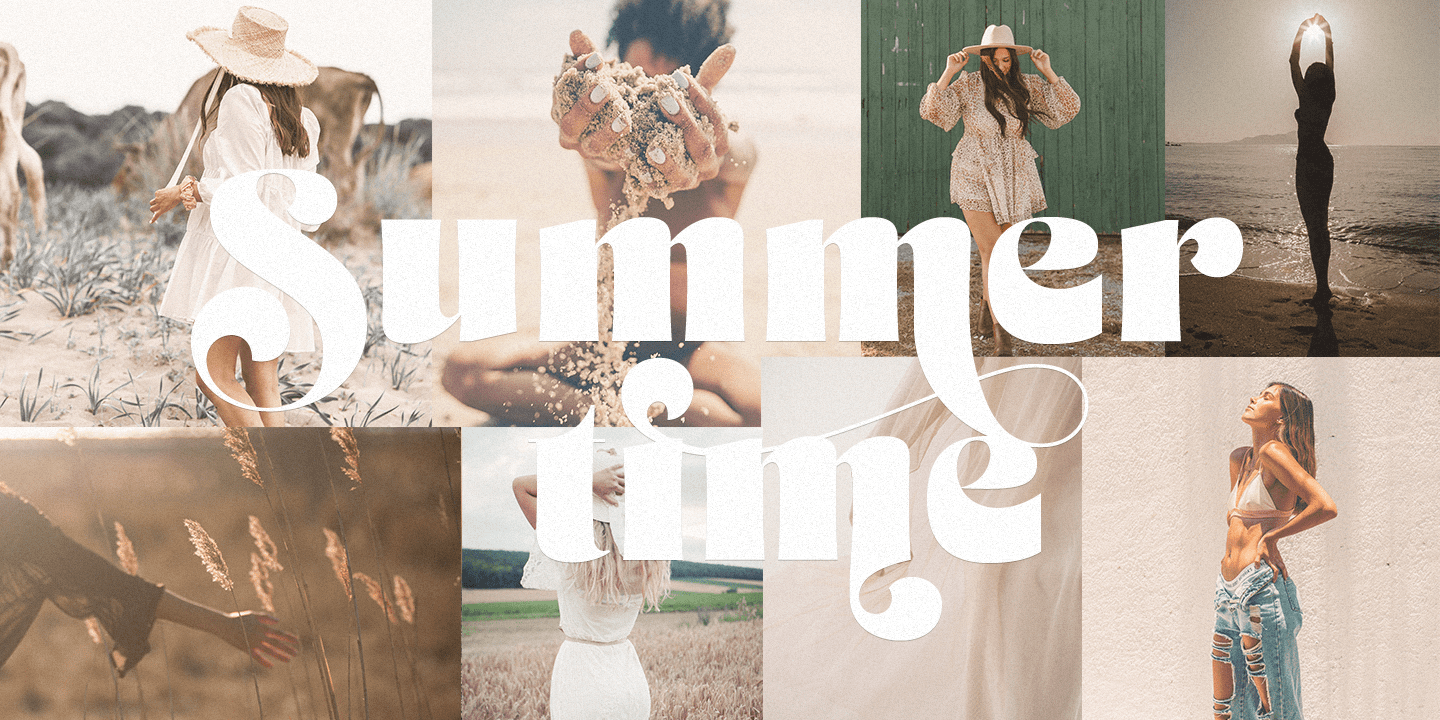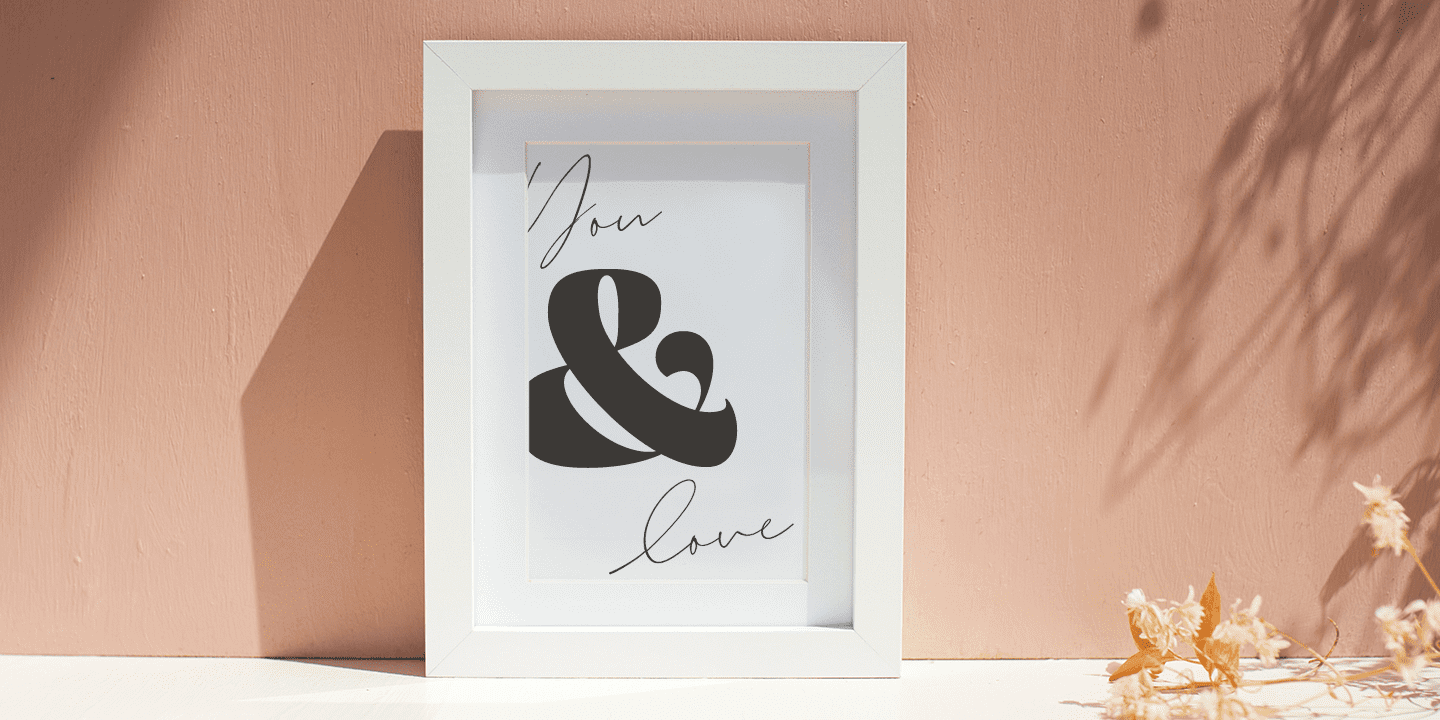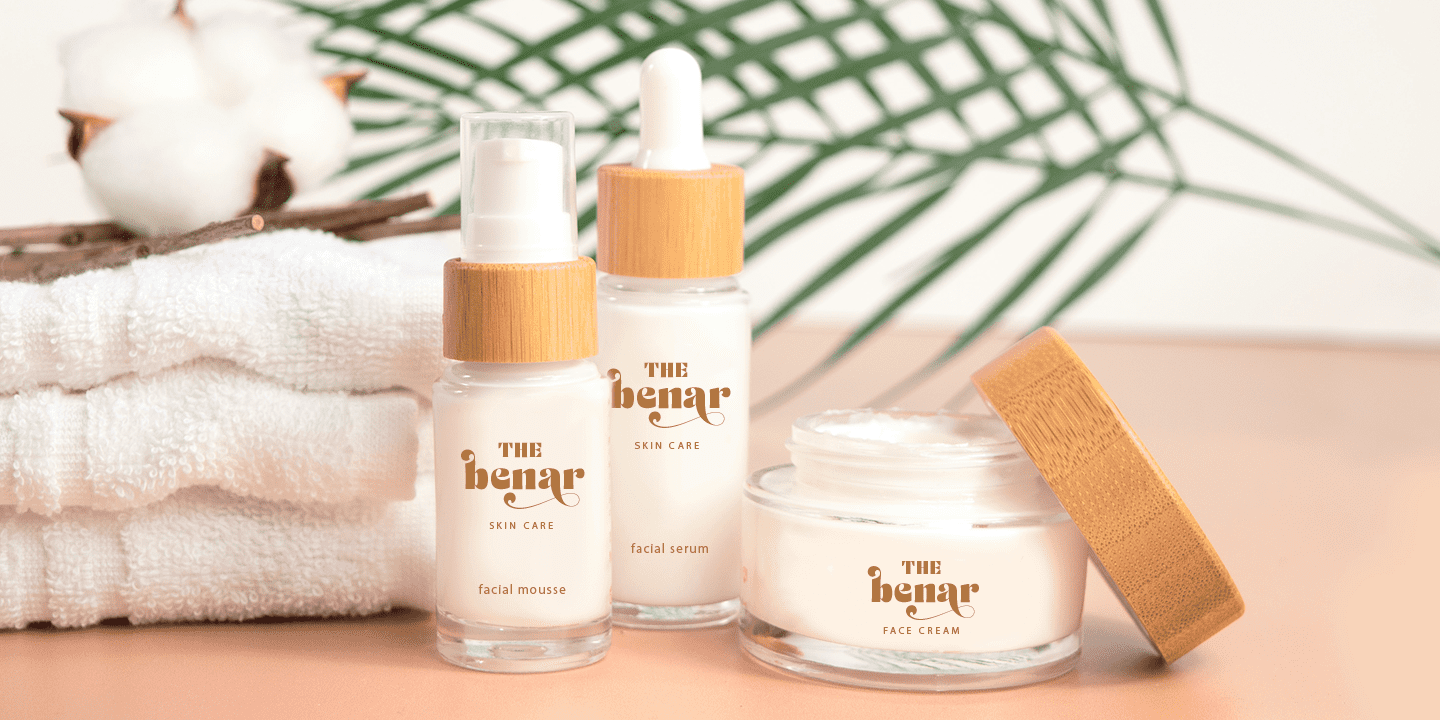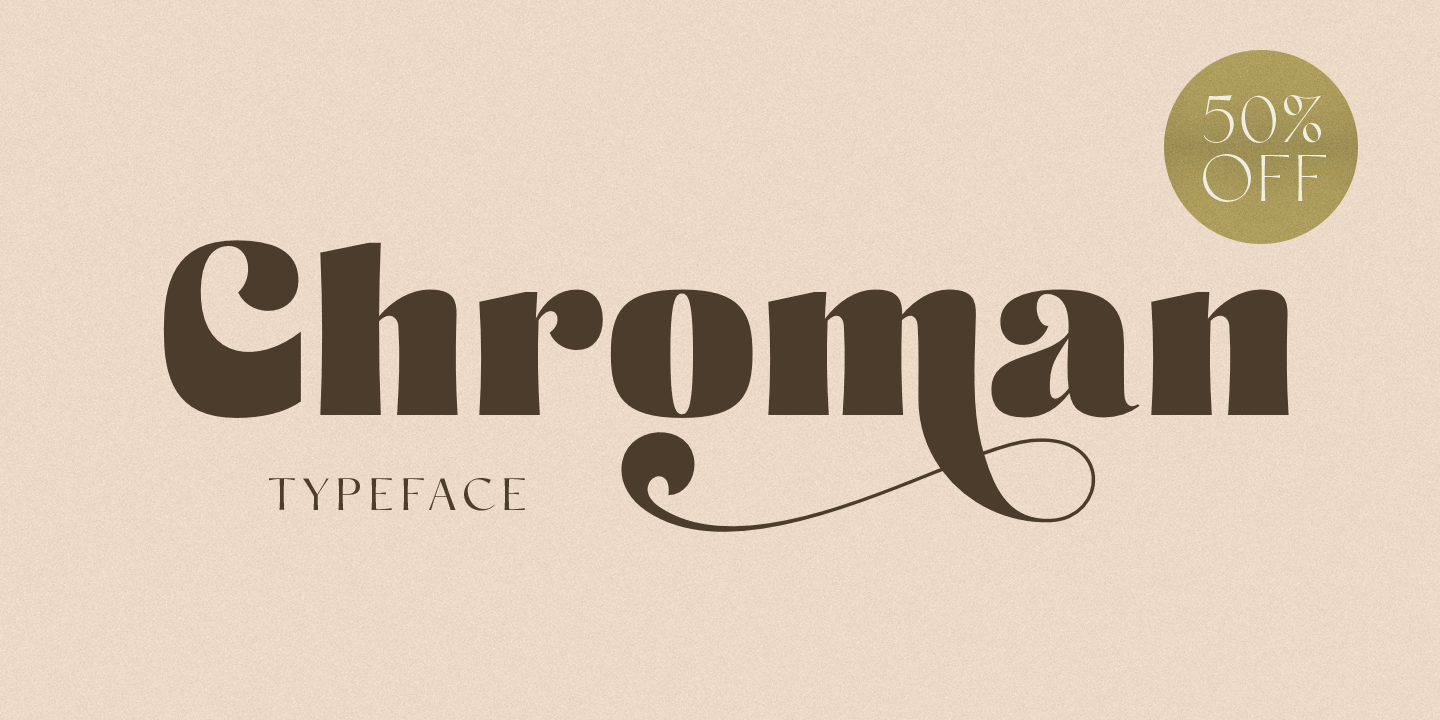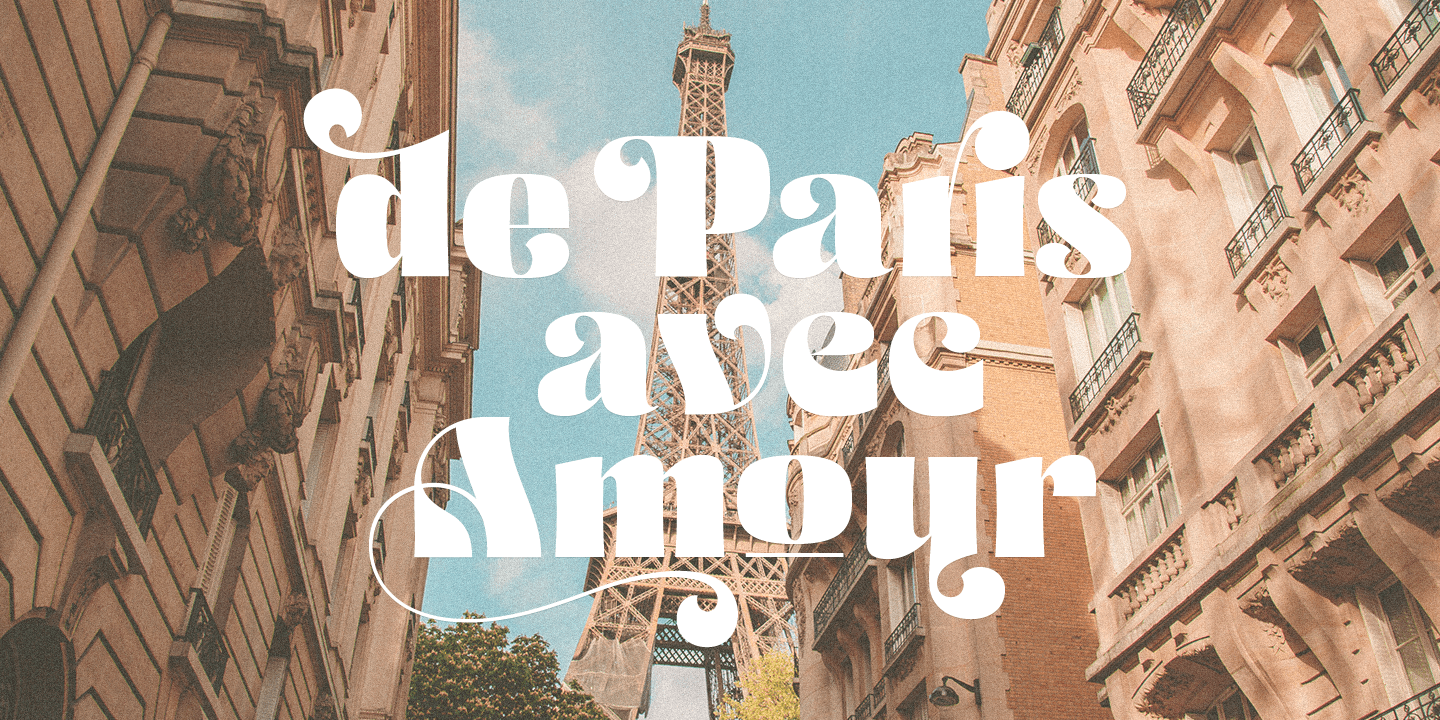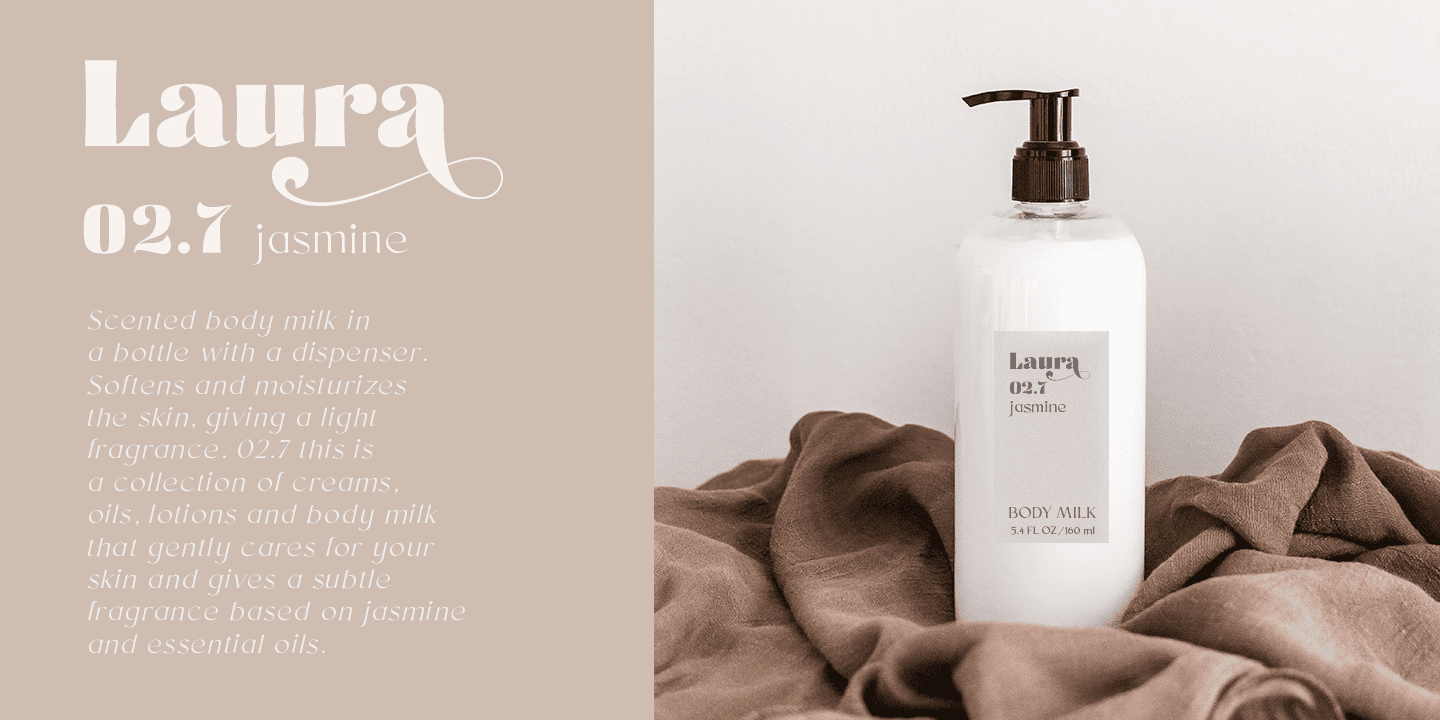
Chroman (1 font)
Its expressive and playful alternate characters are harmoniously combined in this font thereby allowing more creativity. This font is easy to use and has OpenType features but the Stylistic Alternates will require the use of a professional design software such as Adobe Illustrator, Photoshop, InDesign, Inkscape or other.